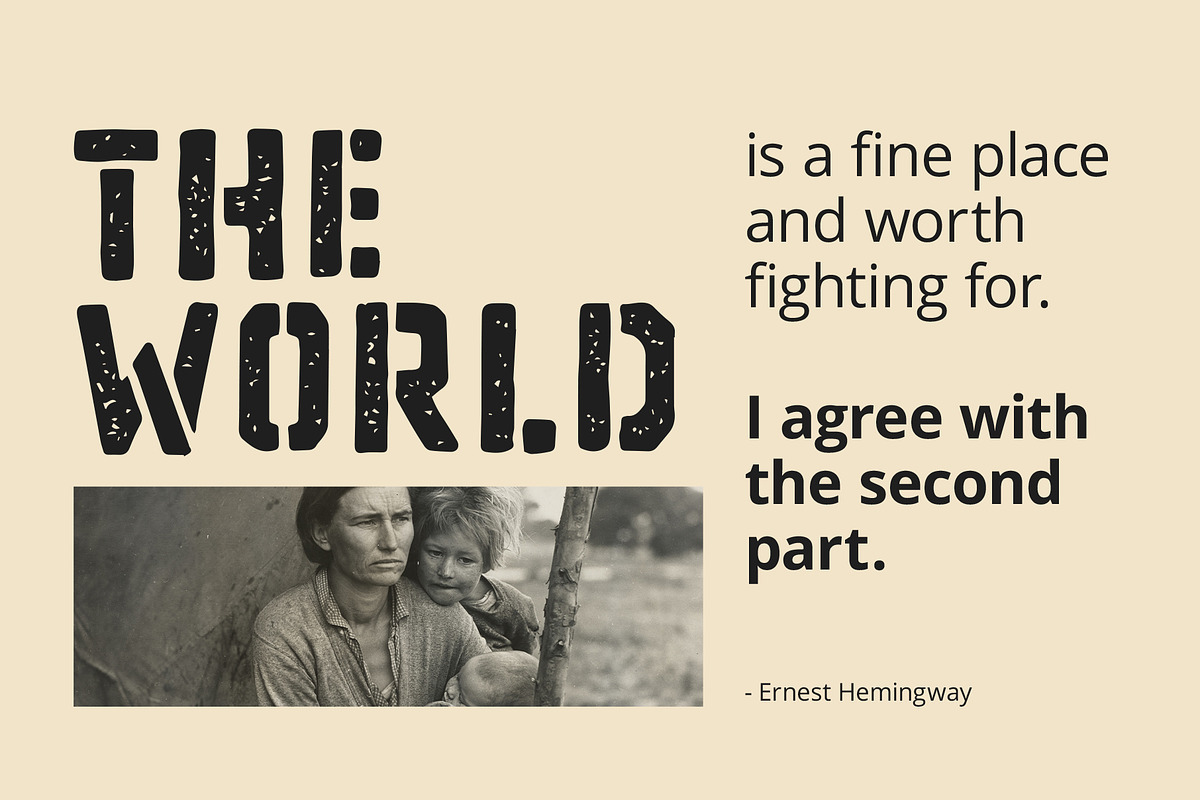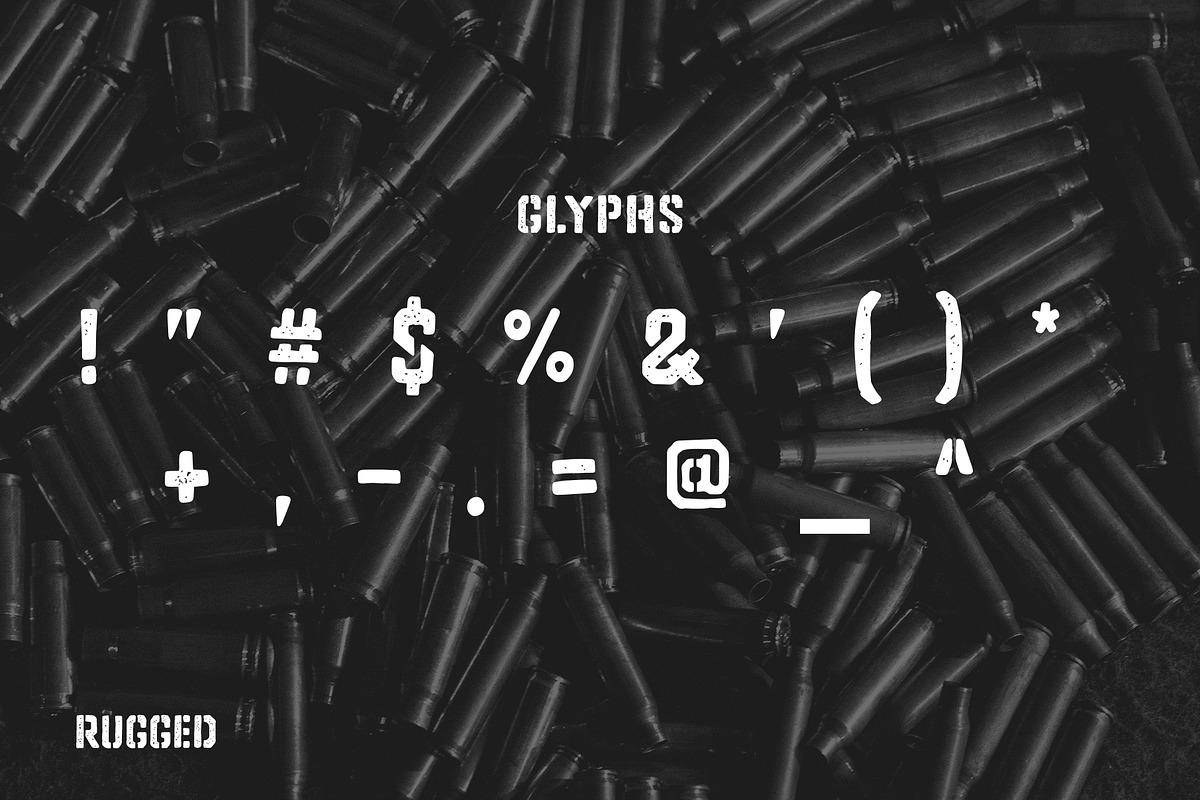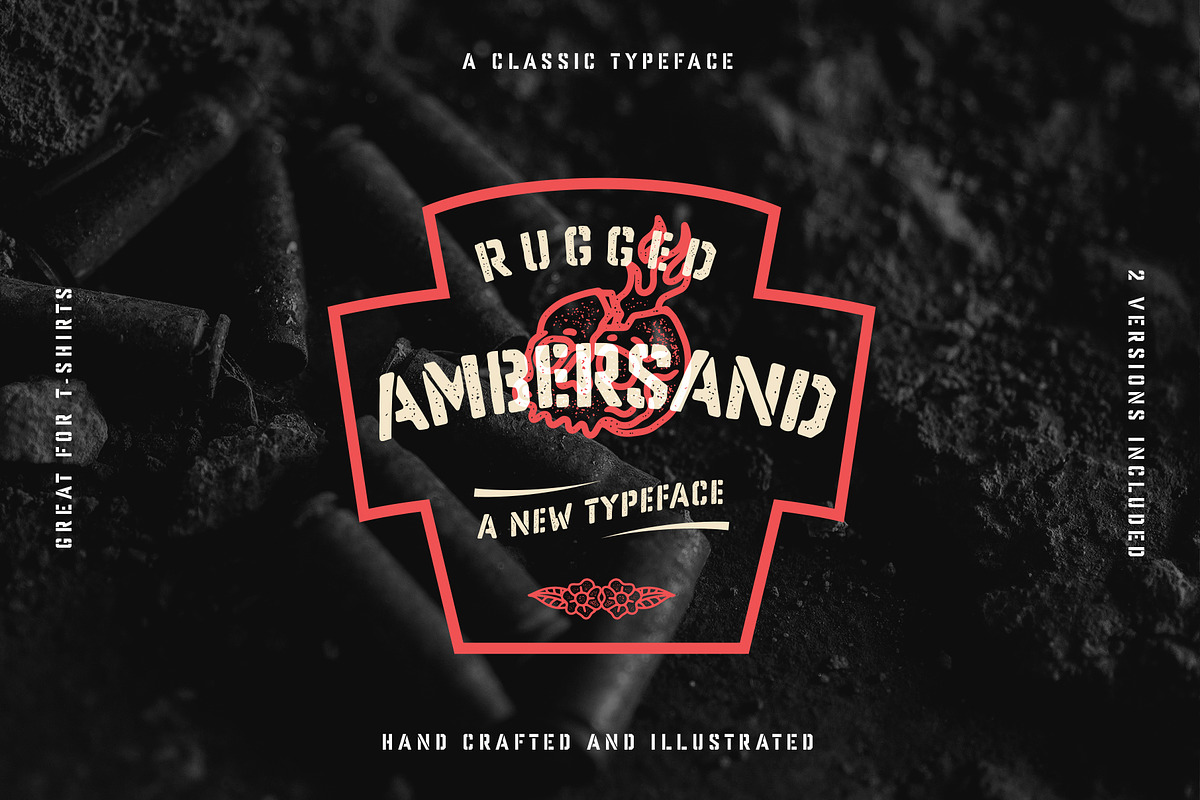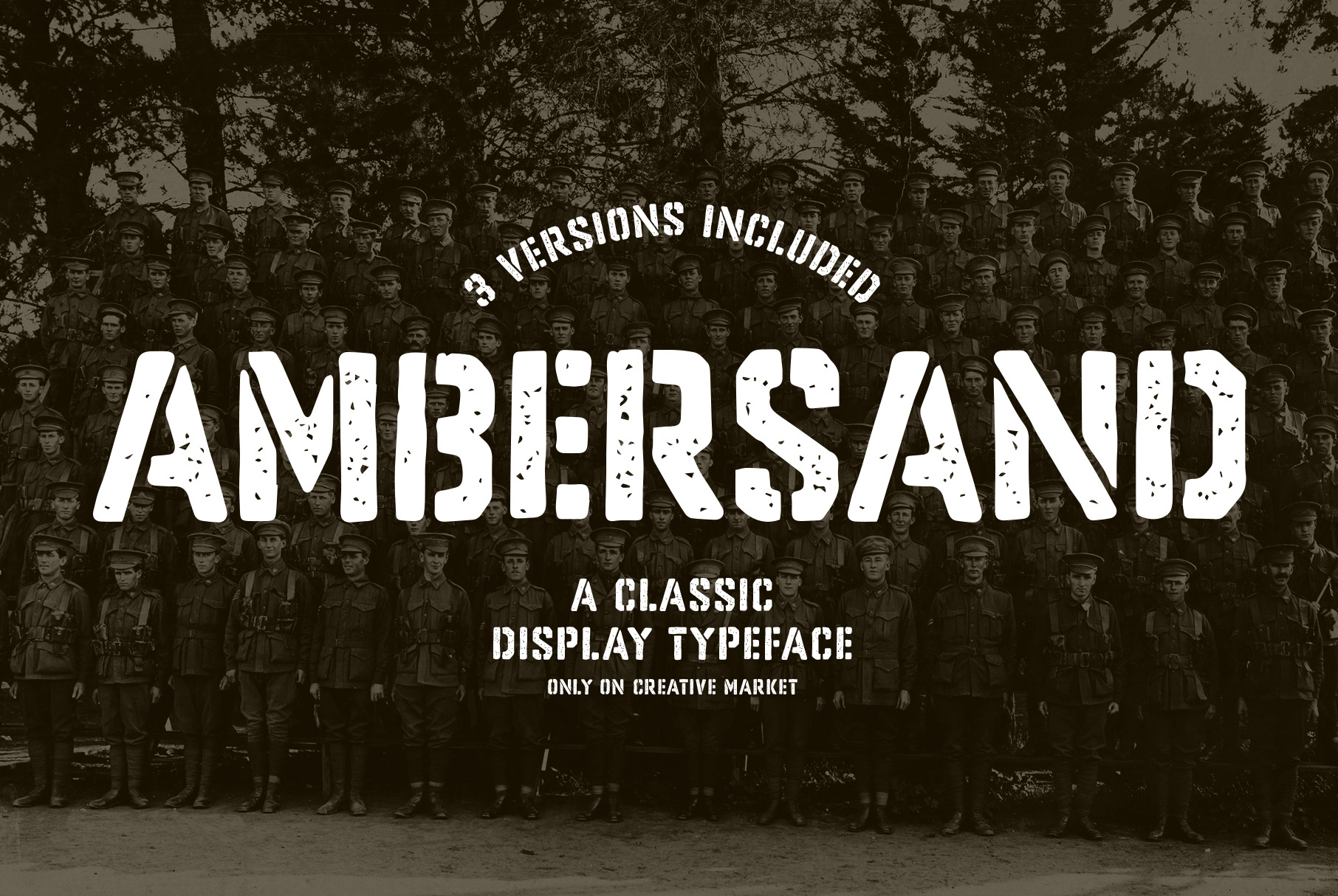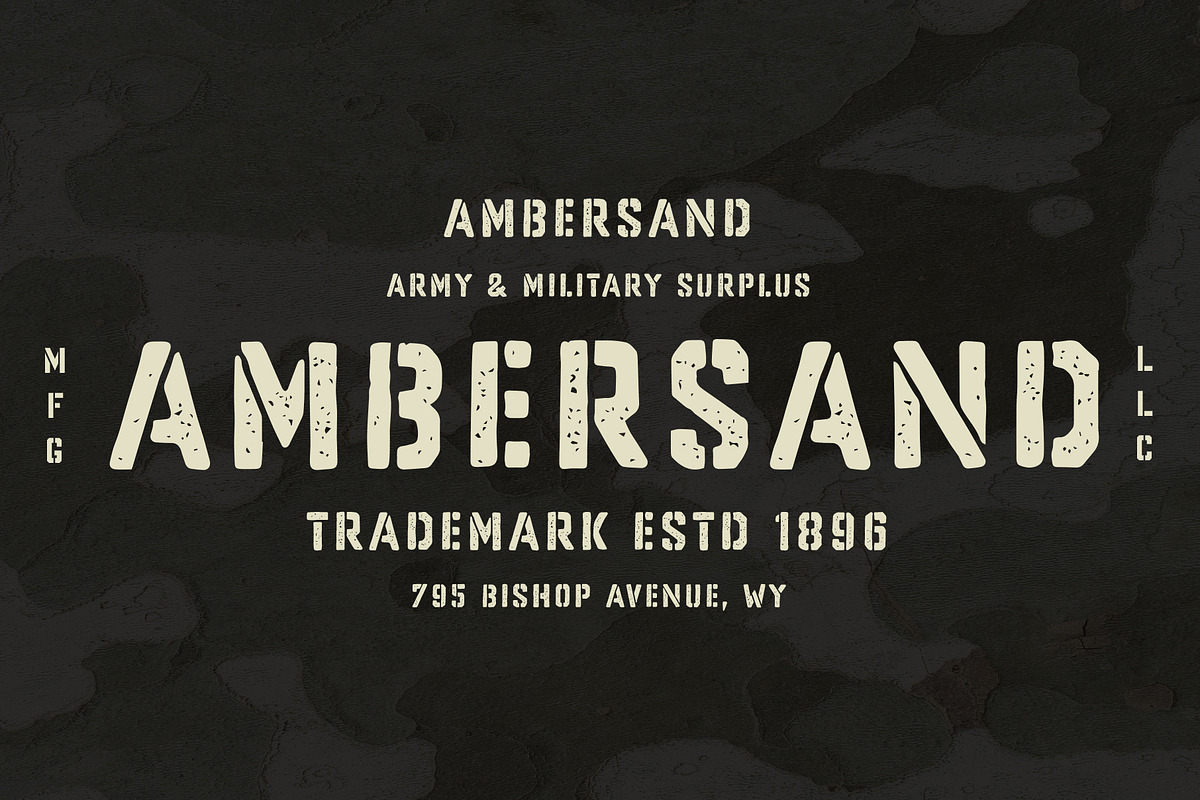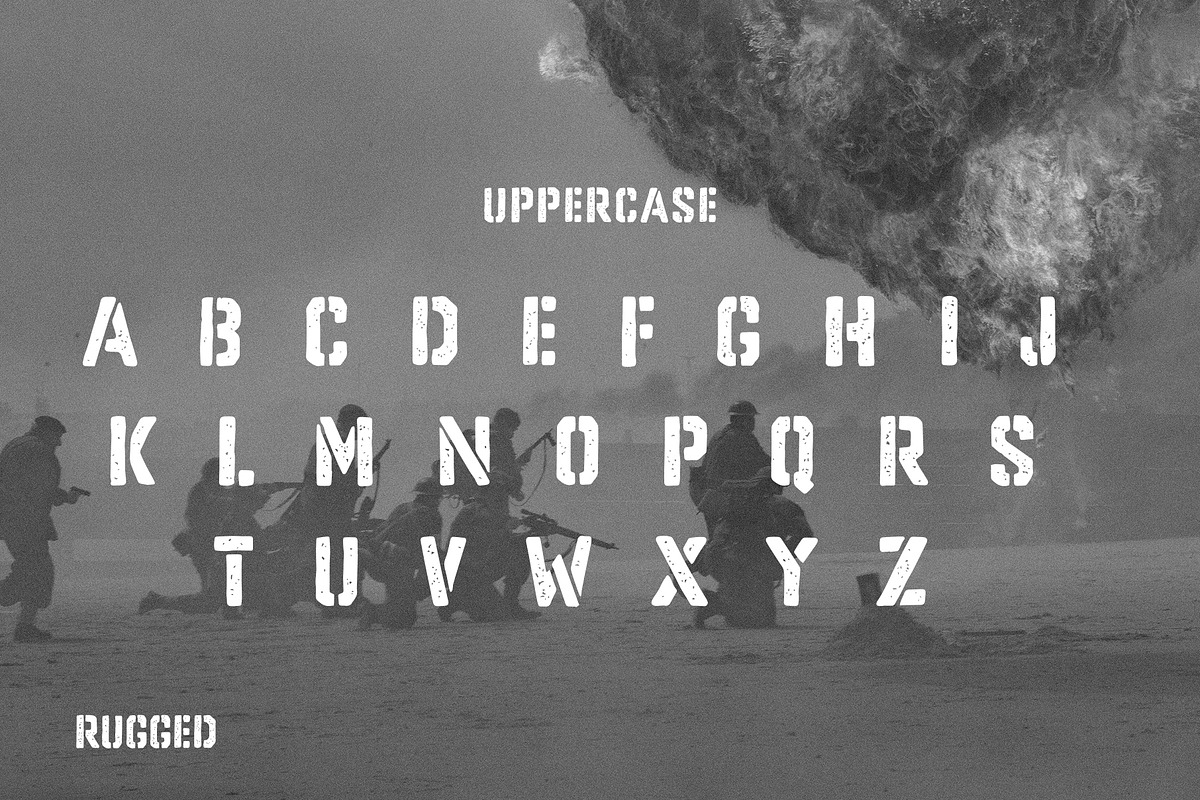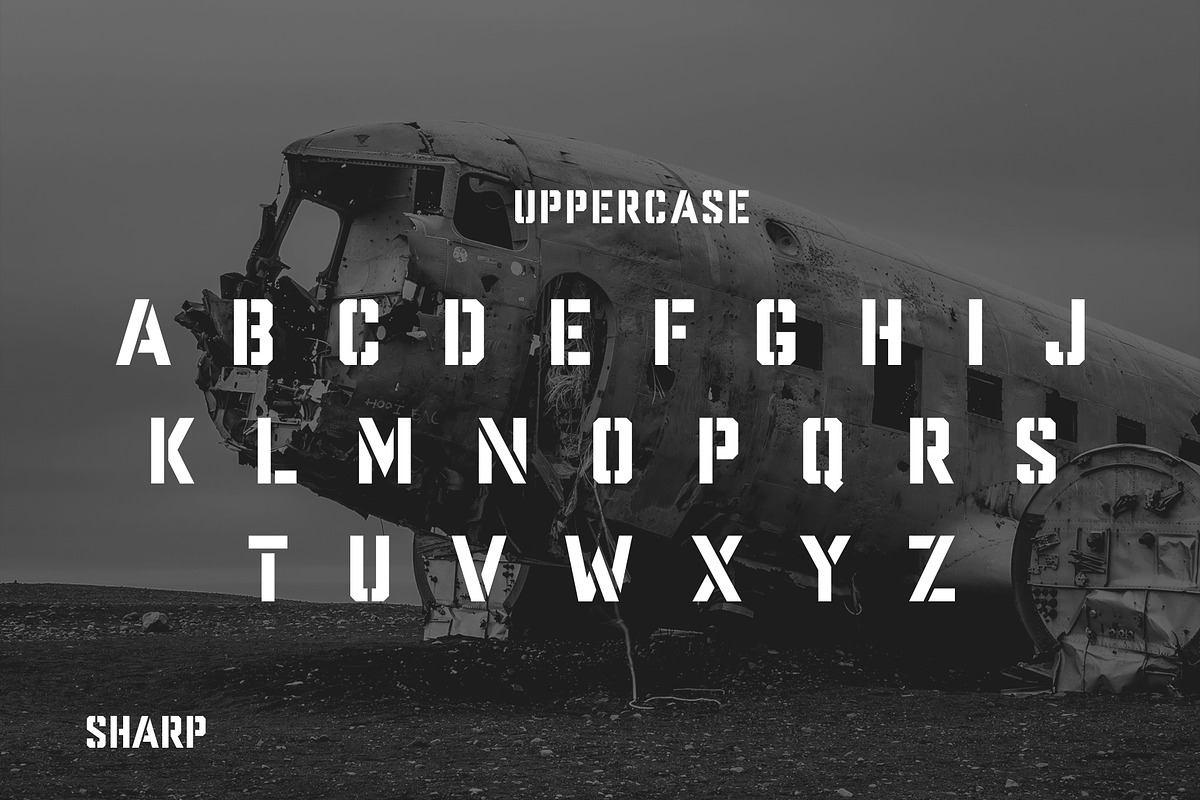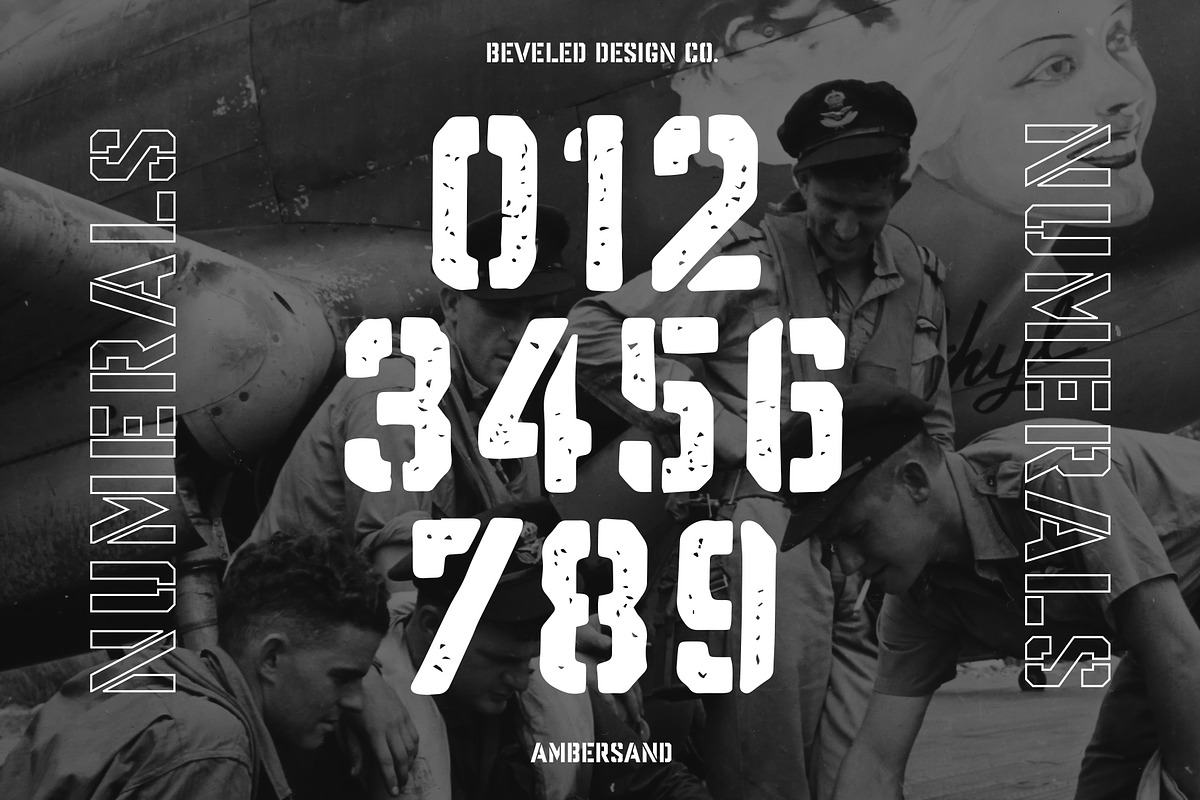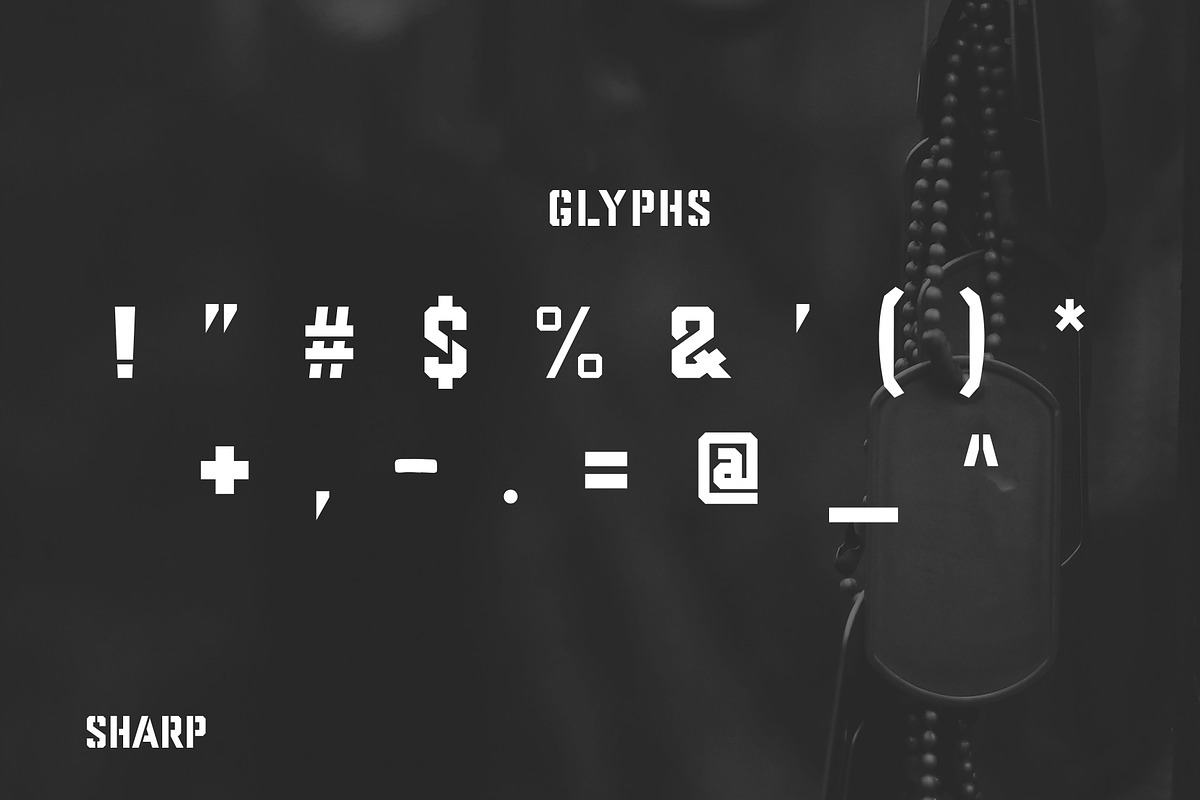
Ambersand | Classic Stencil Typeface
Ambersand is the visual fruition of traditional stencil typefaces conjoined with a handcrafted finish. The initial characters are bold and utilize basic geometric shapes for easy customization and streamlining. The glyphs are crafted with heavy strokes and custom tails. Ambersand consists of three styles to choose from.
One version is your traditional sharp-edged bold stencil. The second version consists of a hand-made stipple effect within the fill of each character. Lastly, the third version is a solid counterpart to the stippled variant. Version 2 and 3 are designed with an organic feel illustrated with their unique hand-illustrated edges. All three versions are versatile typefaces and work well within mediums such as apparel, corporate design, and marketing collateral.
- 3 Custom Fonts
- 3 Sets of Custom Glyphs (36 in Total)
- Pre-Kerned Characters
- Classic Yet Versatile Typefaces